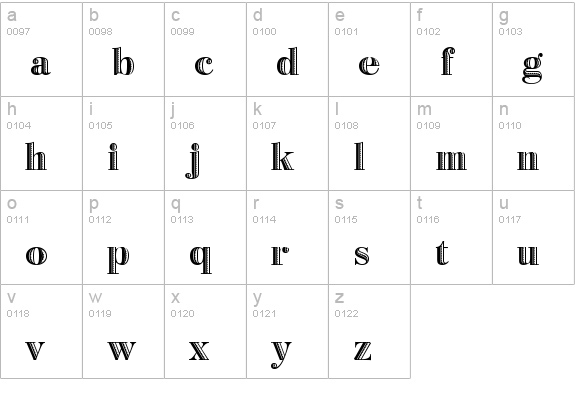
Bertie Std Font Details
Bertie Std is a charming and versatile font that exudes a sense of sophistication and elegance. With its timeless appeal and classic design, this font is perfect for a wide range of creative projects, from branding and packaging to invitations and signage. What sets Bertie Std apart is not only its impeccable style but also the fact that it is available for free download at FontsMarket.com. This means that you can easily access this high-quality font without any cost, making it an excellent choice for both personal and commercial use. Whether you're looking to add a touch of refinement to your designs or simply want to explore a new typeface, Bertie Std is sure to impress with its clean lines, smooth curves, and overall aesthetic appeal. Download it today and elevate your projects with this beautiful and versatile font.